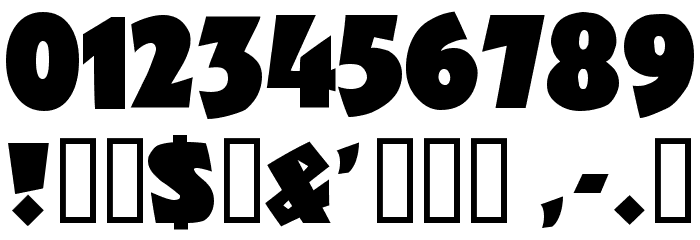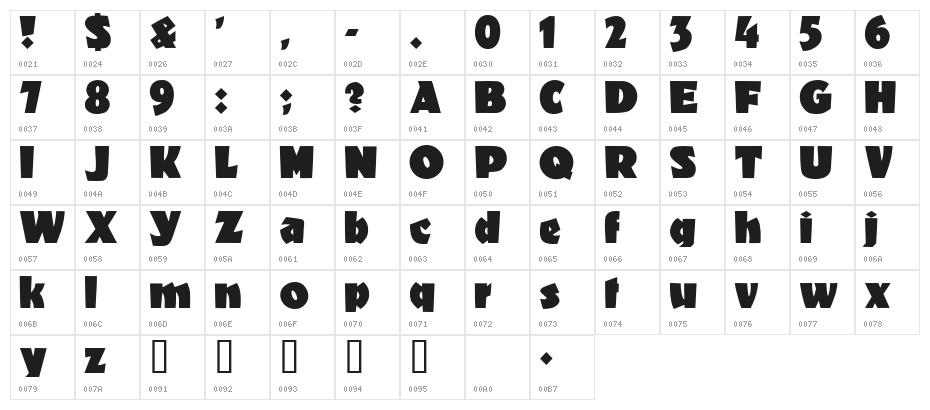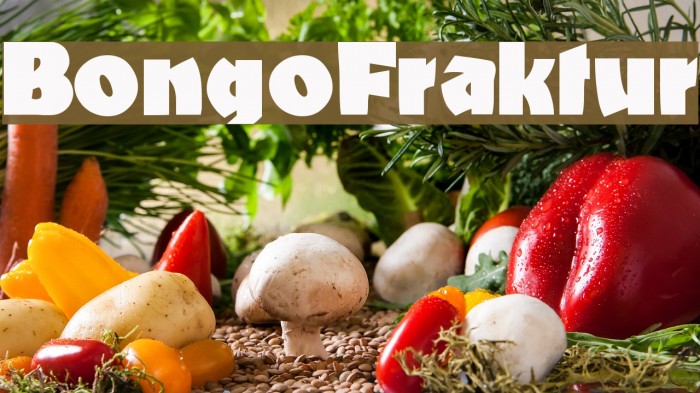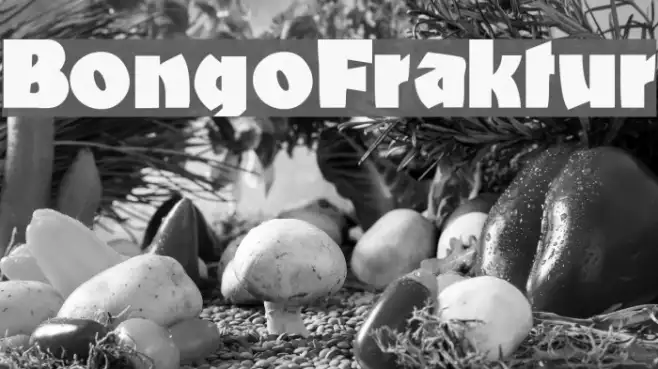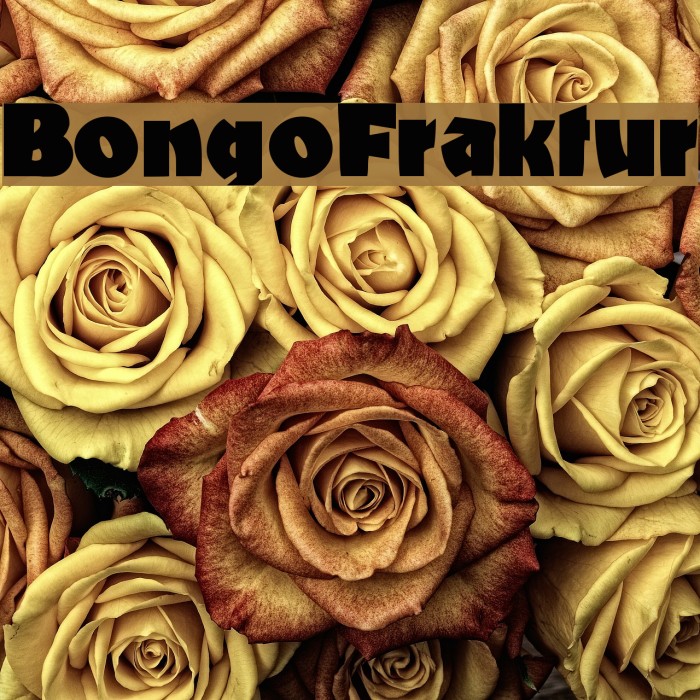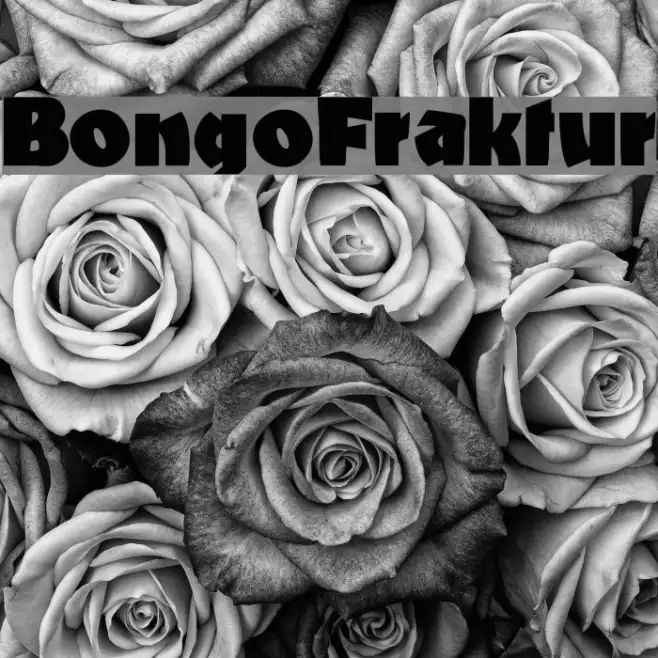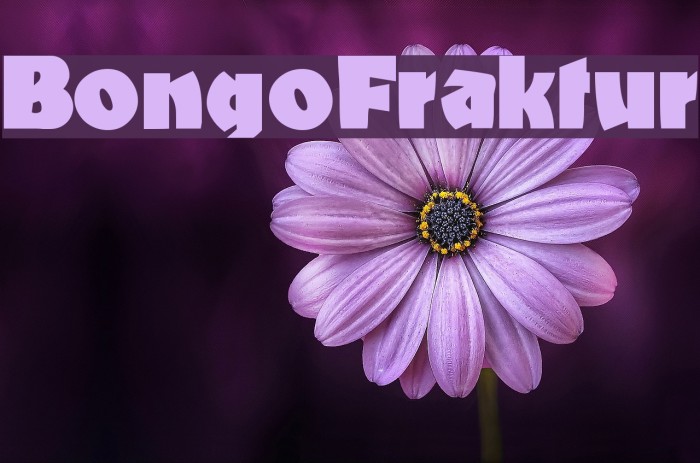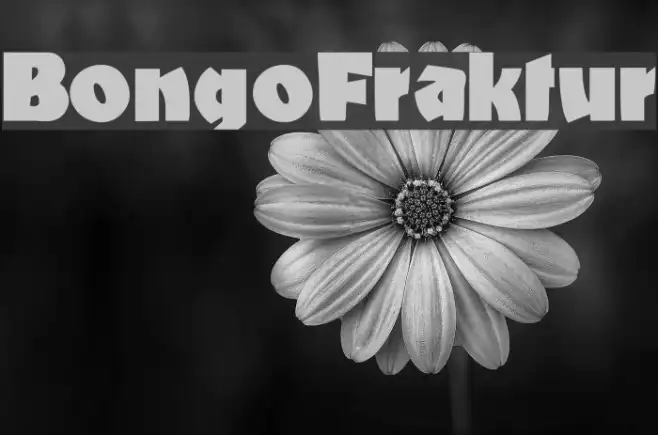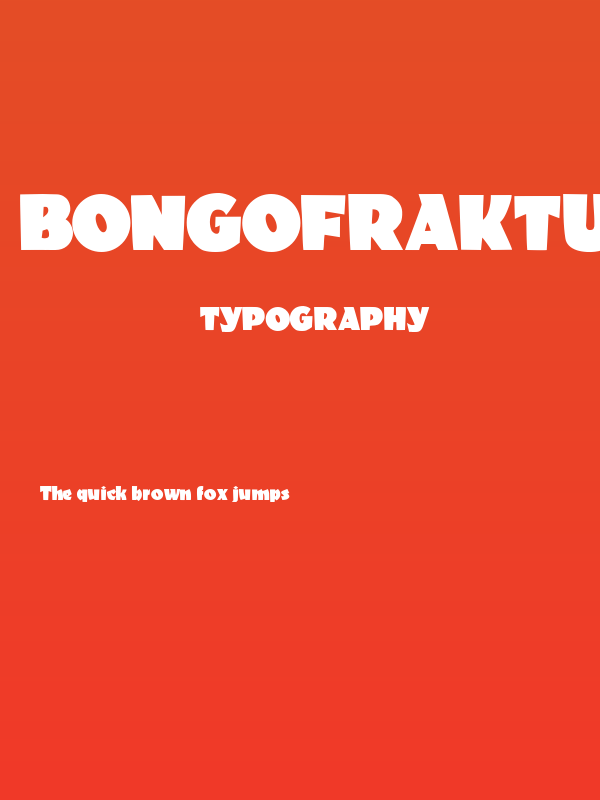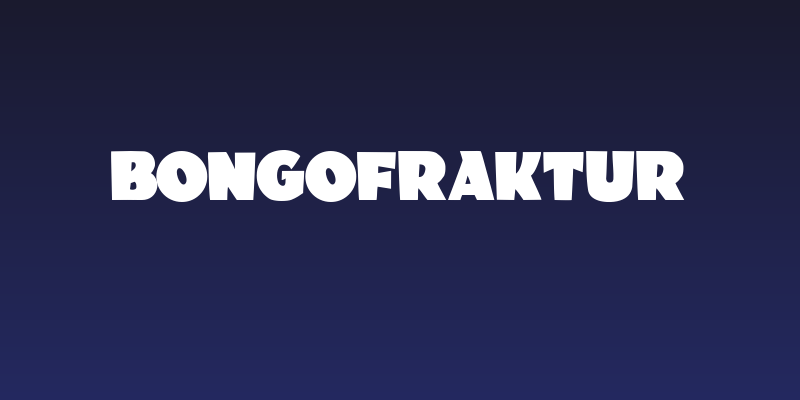
BongoFraktur Font
BongoFraktur Description
This font is a bold and dynamic display typeface with a strong presence. Its thick, blocky letters feature sharp angles and a slightly condensed form, giving it a powerful and assertive look. The uppercase and lowercase letters maintain a consistent weight, while the numbers and special characters are designed to match the boldness of the alphabet. The overall style is reminiscent of vintage poster fonts, with a modern twist that makes it suitable for eye-catching headlines and branding. The character spacing is tight, enhancing its compact and impactful appearance.
| Overall Style | Vintage, Modern |
| Proposed Projects | Ideal for posters, logos, branding, and any project requiring a strong visual impact. |